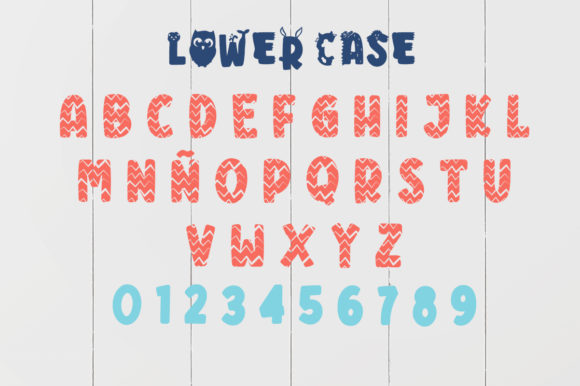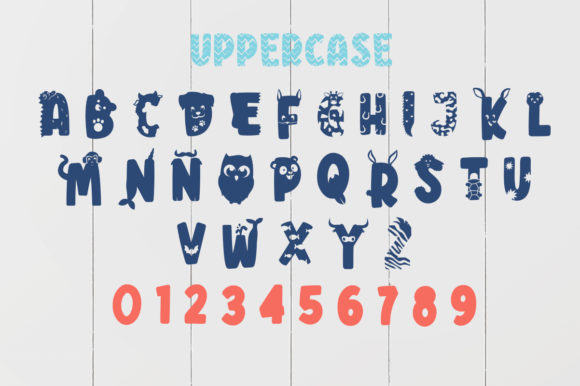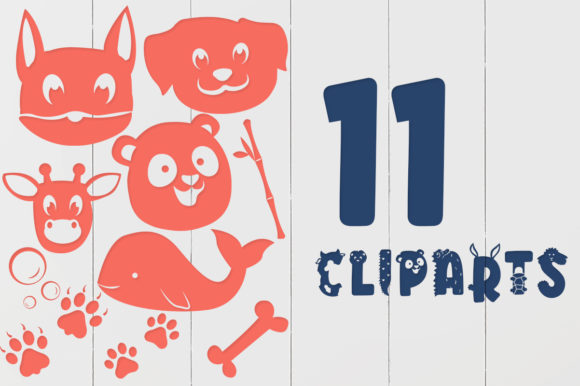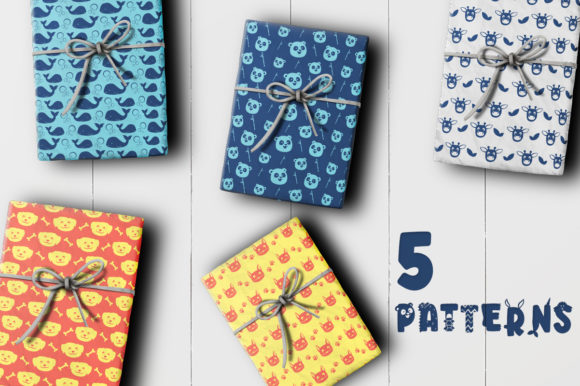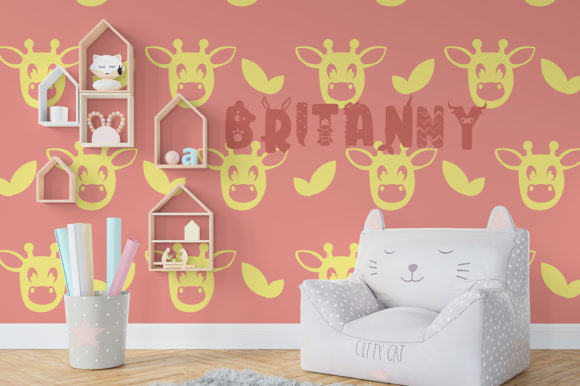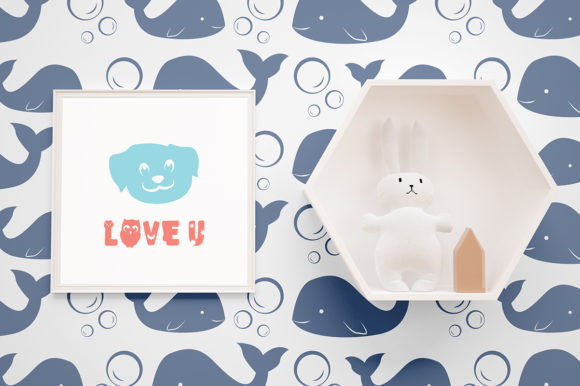
Discover the Charm of Big Little Creatures Font: Elevate Your Designs with a Friendly and Versatile Typeface
In the world of typography, a font can make or break a design. The right font can elevate your creative project from ordinary to extraordinary, capturing the attention of your audience and conveying your message with style. If you’re on the hunt for a typeface that embodies friendliness, versatility, and a touch of playfulness, look no further than the Big Little Creatures font. This bold and lovely display font is making waves in the design community, and for good reason. Its unique blend of characteristics makes it an incredibly versatile choice, suitable for a wide range of contexts and projects.
The Allure of Big Little Creatures Font
Big Little Creatures font is more than just a collection of letters; it’s an experience. Its friendly feel is immediately noticeable, making it perfect for projects where approachability and warmth are key. Whether you’re designing for a children’s book, a craft blog, or a brand that wants to appear more approachable, this font is sure to hit the right note. Its bold nature ensures that your message won’t go unnoticed, making it ideal for headings, titles, and any place you want to draw attention.
One of the standout features of the Big Little Creatures font is its incredible versatility. It can seamlessly transition from playful and whimsical to bold and impactful, depending on the context in which it’s used. This adaptability makes it a valuable addition to any designer’s toolkit. Here are just a few examples of how you can use Big Little Creatures font in your projects:
• Children’s Content: Its playful and friendly vibe makes it perfect for children’s books, educational materials, and kids’ websites.
• Craft and DIY Projects: Add a personal touch to your crafting blog, DIY tutorials, or handmade product labels with this charming font.
• Branding and Marketing: Use it to give your brand a friendly and approachable image. It’s great for logos, packaging, and promotional materials.
• Events and Invitations: Make your event invitations, flyers, and posters stand out with a bold and eye-catching title.
Why Big Little Creatures Font Stands Out
In a sea of fonts, Big Little Creatures manages to stand out for several reasons:
• Unique Character: It has a distinct feel that is hard to categorize, making it a refreshing change from more traditional fonts.
• Legibility: Despite its bold nature, the font remains highly legible, ensuring your message is always clear.
• Emotional Connection: The friendly and approachable vibe of the font helps create an emotional connection with your audience.
How to Make the Most of Big Little Creatures Font
To truly leverage the potential of Big Little Creatures font, consider the following tips:
• Mix and Match: Don’t be afraid to pair it with other fonts for contrast. Its bold nature makes it a great headline font, while a simpler font can be used for body text.
• Play with Sizes: Experiment with different sizes to emphasize certain words or phrases, adding depth and interest to your design.
• Color Matters: While the font itself is bold and eye-catching, the color you choose can further enhance its impact. Bright colors can amplify its playful nature, while more muted tones can offer a sophisticated look.
Big Little Creatures font is a game-changer for designers and crafters looking to add a friendly, bold, and versatile touch to their projects. Its unique blend of playfulness and impact makes it suitable for a wide range of applications, from children’s content to branding and marketing materials. By incorporating Big Little Creatures into your design toolkit, you’ll have a typeface that can help your creative ideas stand out in a crowded digital landscape. So why wait? Discover the charm of Big Little Creatures font today and elevate your designs to new heights.